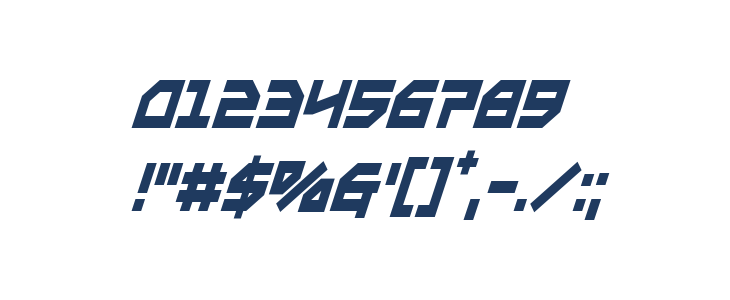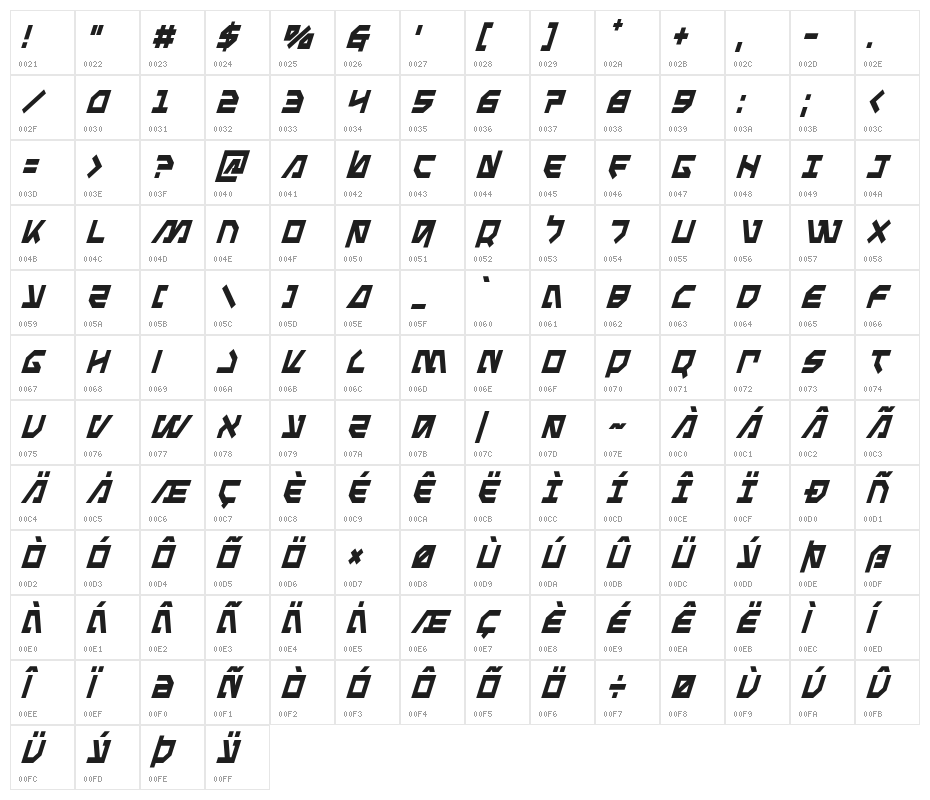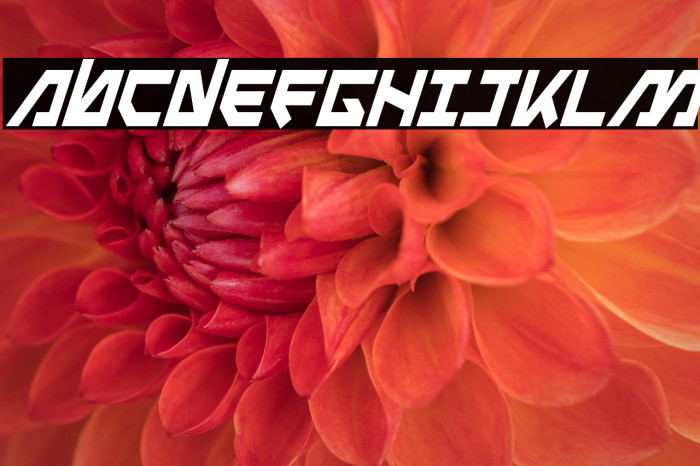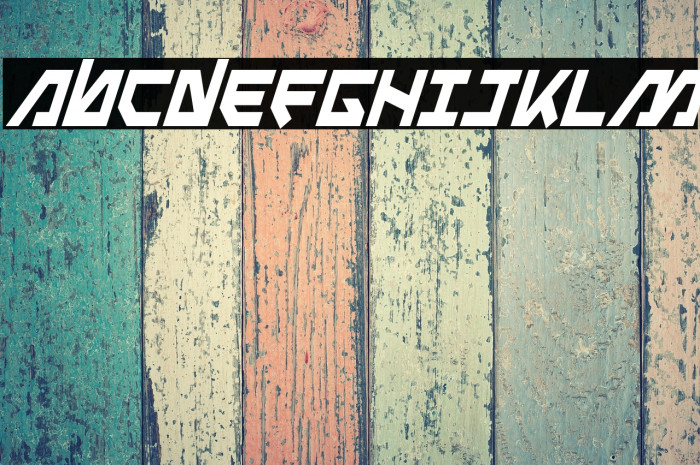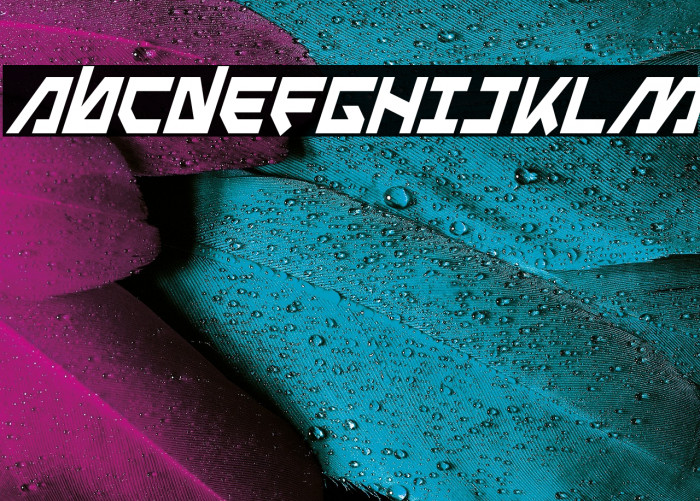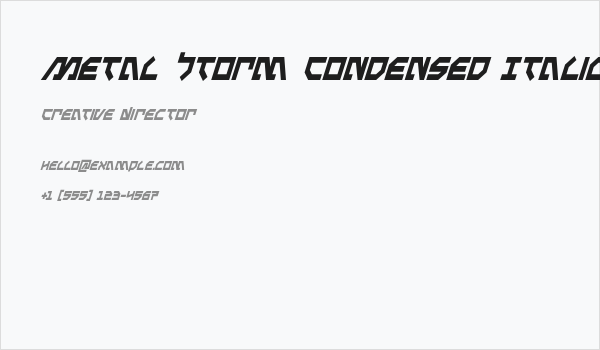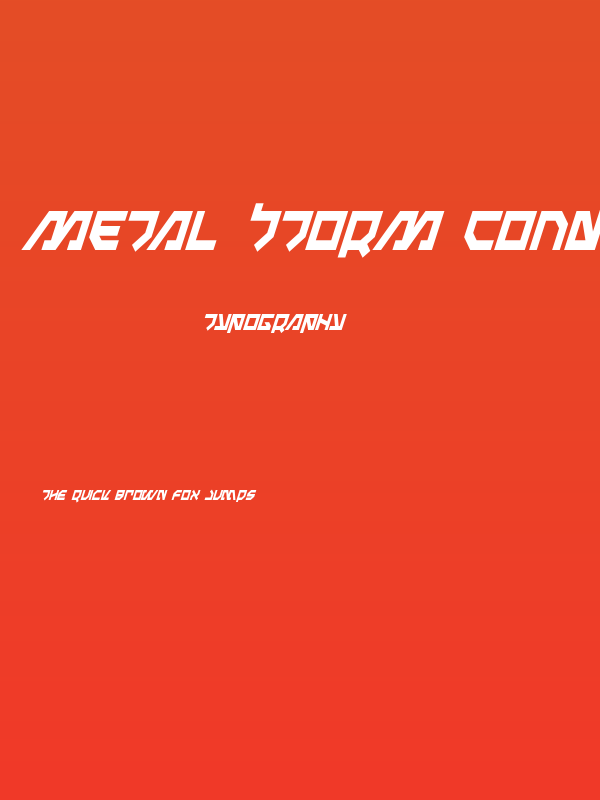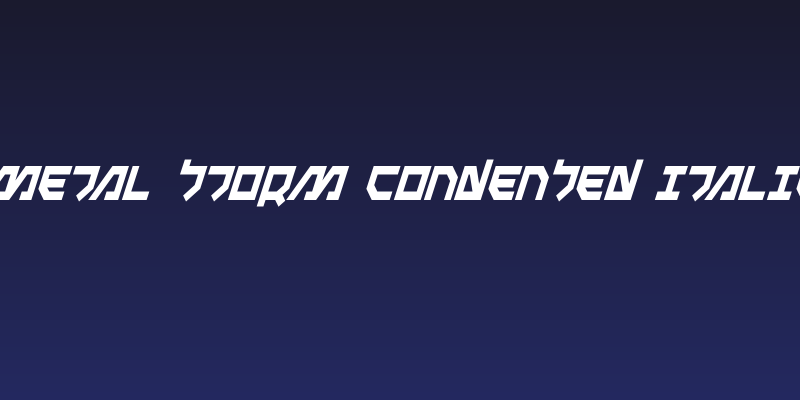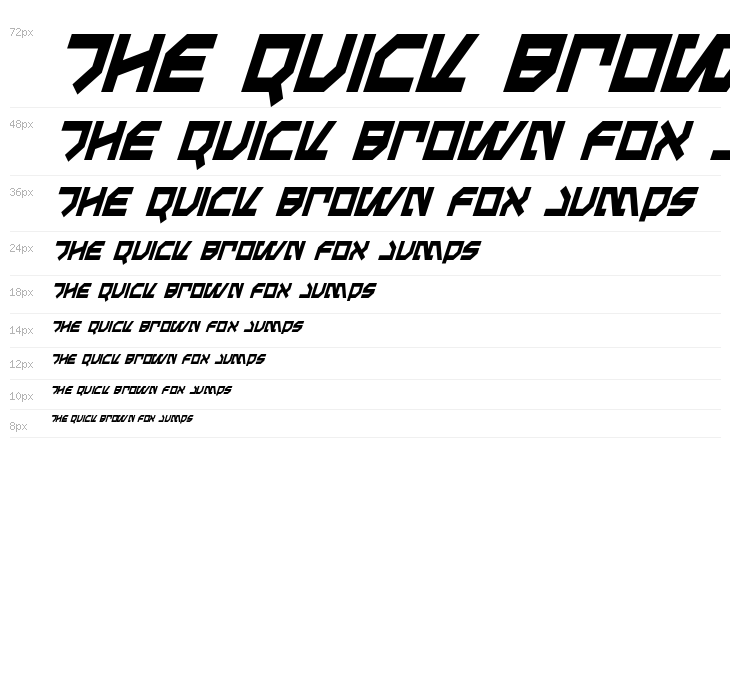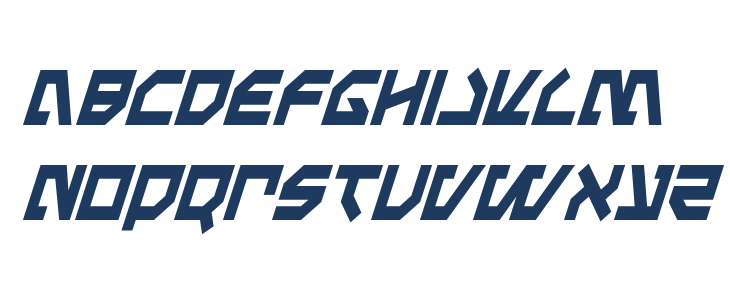
Metal Storm Condensed Italic Font
Metal Storm Condensed Italic Description
This font features a bold, angular design with a futuristic and aggressive aesthetic. The characters are sharply cut with a condensed form, giving them a compact and powerful appearance. The italic slant adds a dynamic and forward-moving feel, enhancing its modern and edgy style. The uppercase and lowercase letters maintain a consistent geometric structure, while the numerals and special characters follow the same bold and angular theme. This font is perfect for projects that require a strong, impactful visual presence.
| Proposed Projects | Ideal for sci-fi themed designs, video game titles, sports branding, and tech-related logos. |